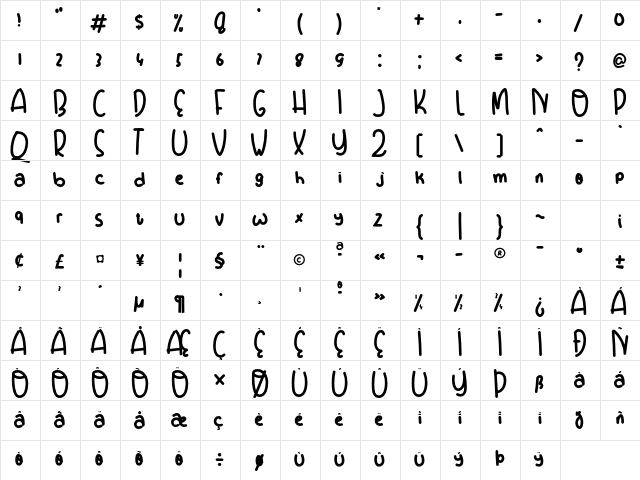
Dream School Rounded
Design Context for Dream School Typeface
Dream School uses gentle rounded endings to create a warm, inviting typographic personality — less corporate than geometric sans, more refined than playful display fonts.
A natural fit for tech startups, health and wellness brands, children's products, and friendly consumer apps.
Font Pairing: Pairs well with a rounded or humanist sans for body copy, maintaining the friendly tone without relying on Dream School to carry extended reading.
Pro Tip: Pair Dream School with a geometric sans for a balanced system — the rounded softness works as a warm counterpoint to harder-edged companions.